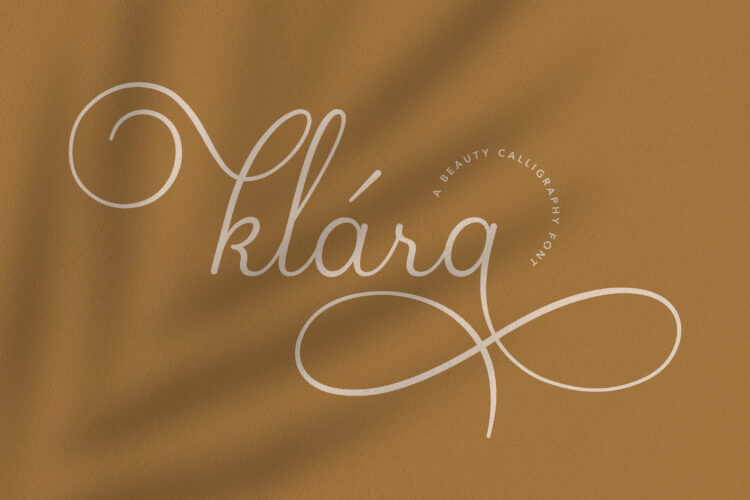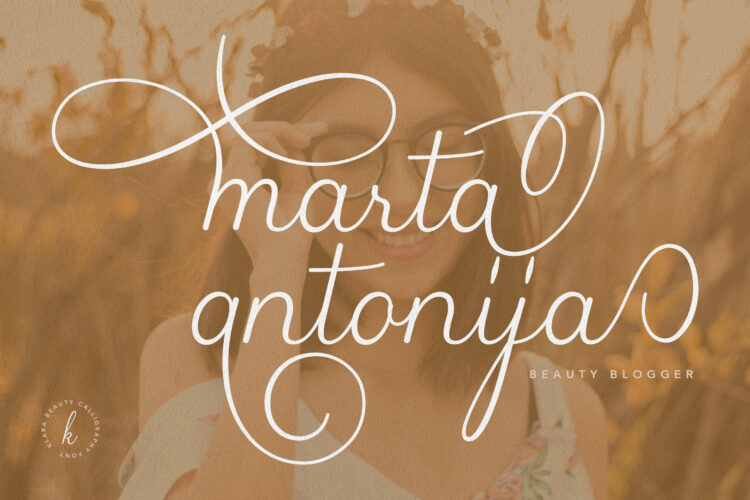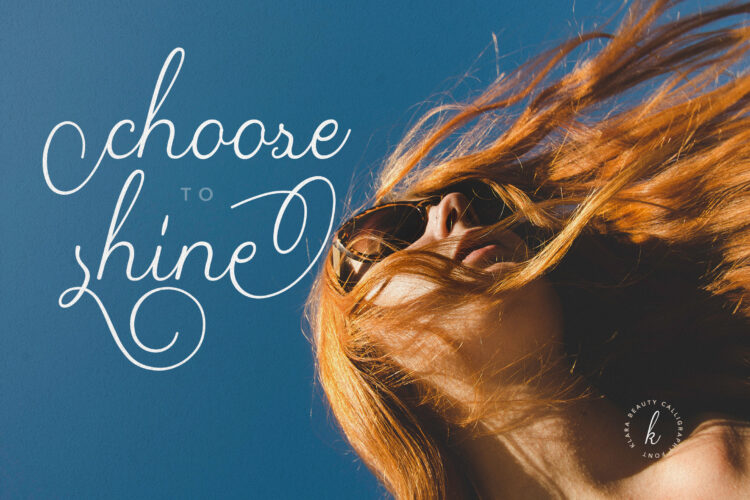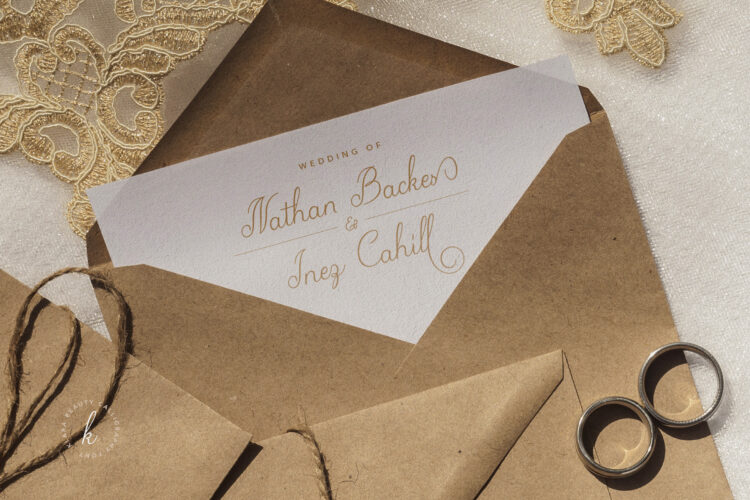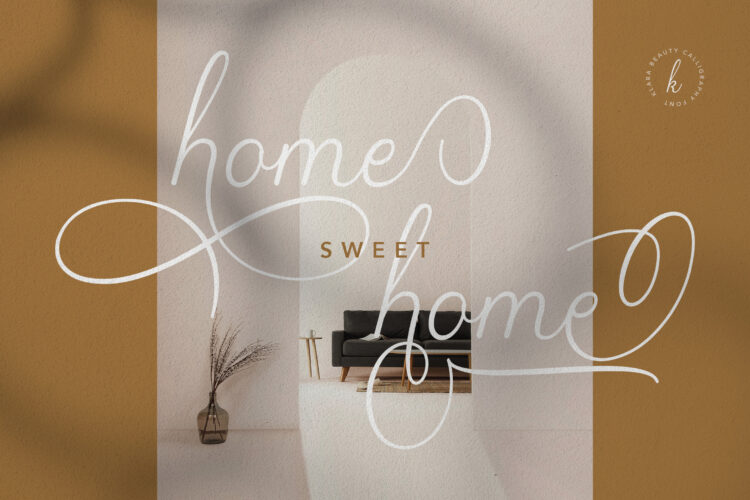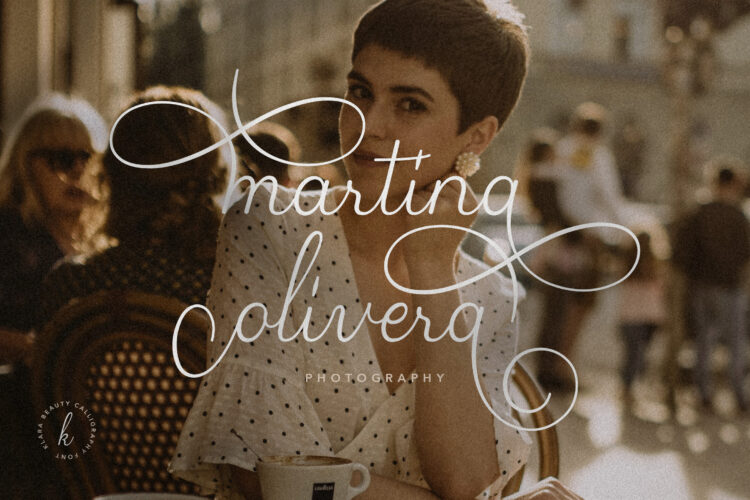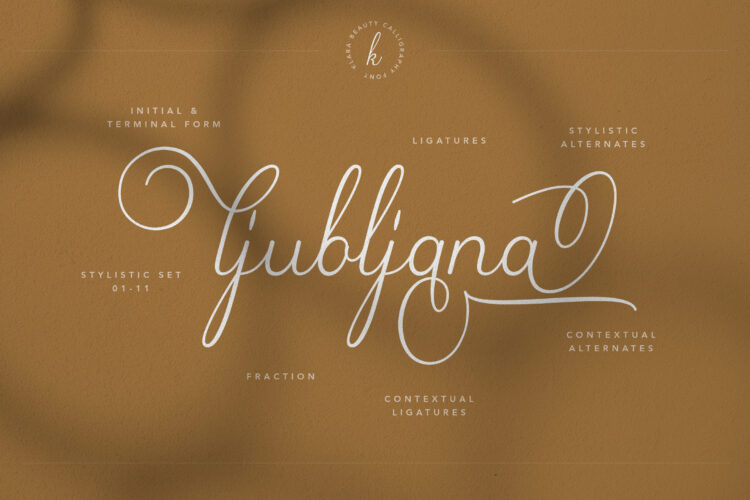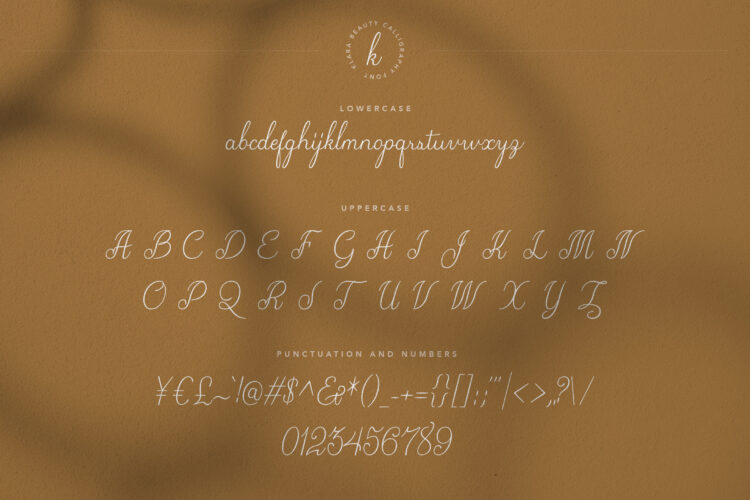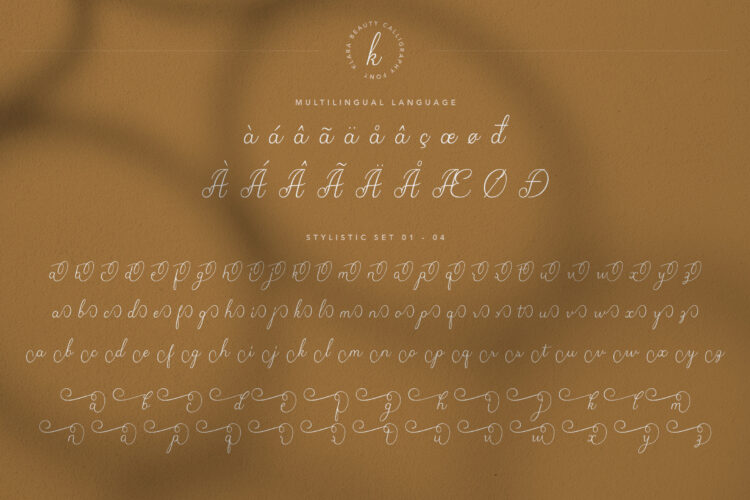
Another touch for your handwritten font with a beautiful calligraphy curve, Klara is all you need! Klara is a perfect font for those who need elegance, stylish and beautiful designs and well suited for wedding invitations, quoted-text, motivational quotes, and feminine branding. It’s also perfect for elegant logos, woman’s magazines, websites, and any other projects requiring a handwritten and luxurious touch.
Klara includes a full set of beautiful hand-lettered uppercase and lowercase calligraphy font; supports OpenType features such as: kerning, initial form, terminal form, ligatures, fractures and many more. By using this font you can access all alternates included stylistic and contextual alternates.
This font is support Opentype features:
• Kerning
• Access all alternates
• Stylistic alternates
• Contextual alternates
• Initial form
• Terminal form
• Ligatures
• Contextual ligatures for call Stylistic set 02 and 03 ( ~ + a = a.ss03 and a +`~ = a.ss02 )
• Fraction
• Stylistic set 01-11
Klara-Beauty Calligraphy Font